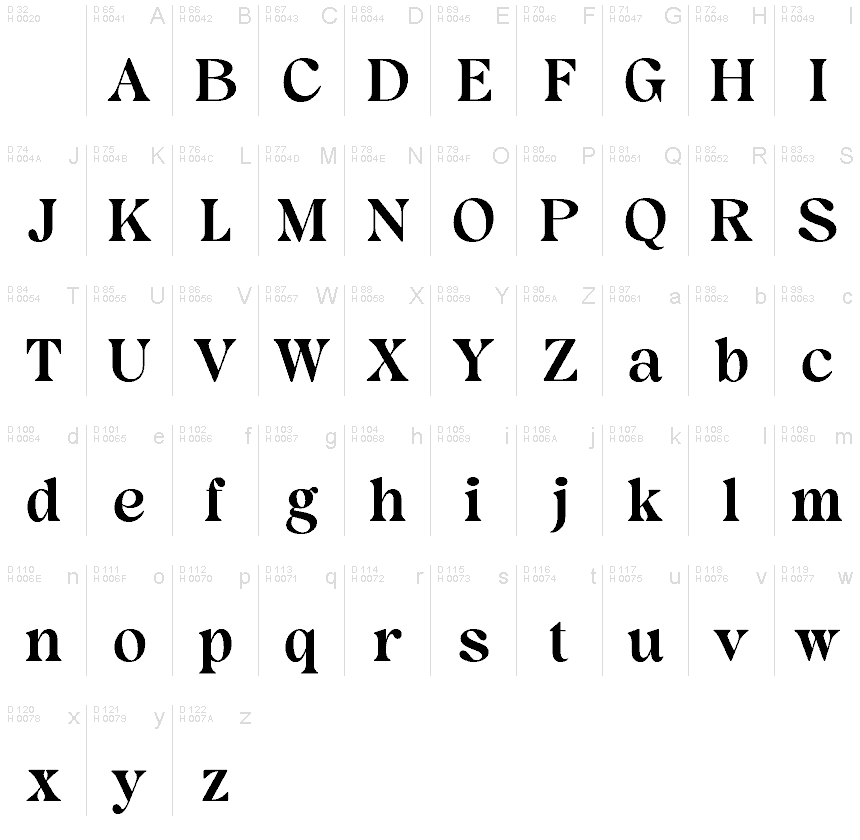
Helavite Demo Regular
Helavite font by Craft Supply Co is a bold serif font that channels classic elegance with its sophisticated design. With its refined lines, this font carries a timeless appeal perfect for adding a touch of class to any project.
Suitable for luxury branding, editorial design, invitations, packaging, logos, book covers, posters, certificates, websites and social media visuals.